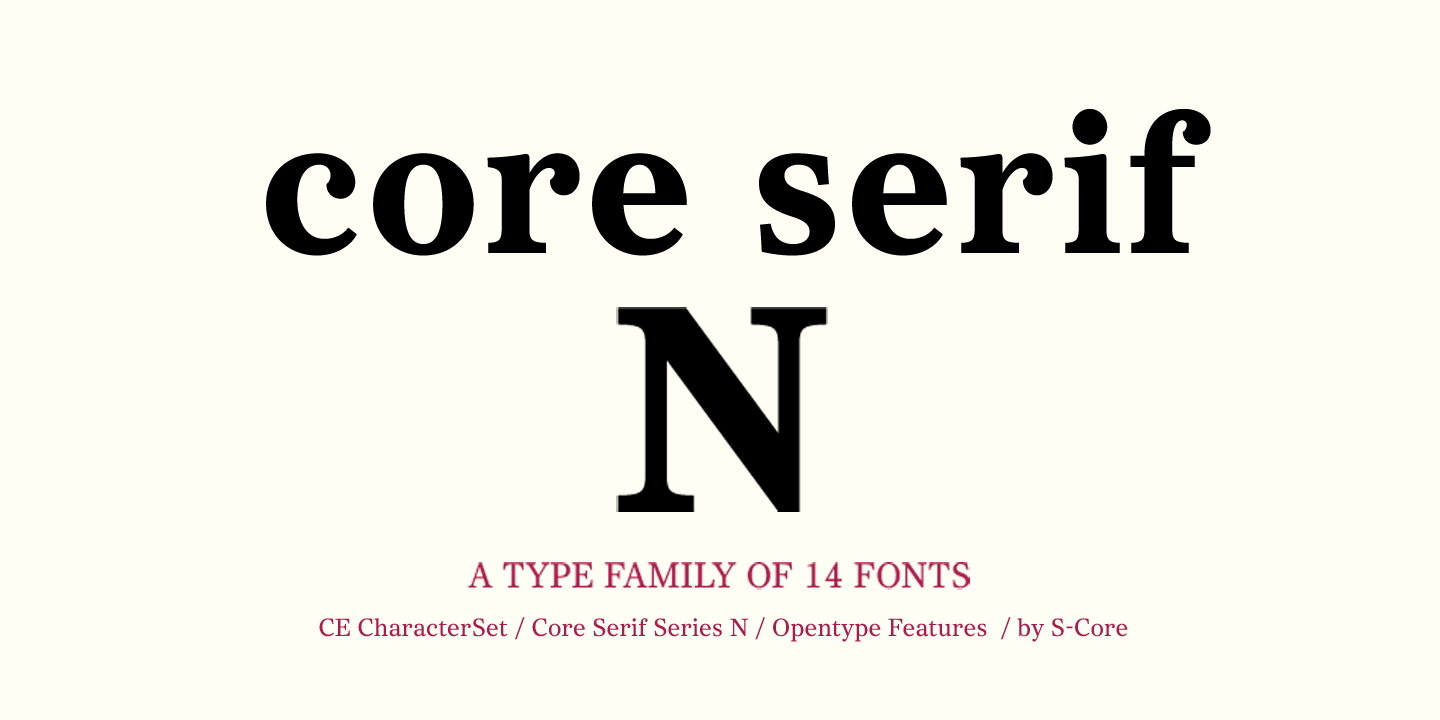
Core Serif N Font is perfect for scholarly publications, editorial design layouts, literary magazine typography, academic institution branding, book publishing projects, formal documentation, traditional newspaper design, and prestigious intellectual communications. This distinguished typeface excels in applications requiring typographic excellence and scholarly authority that establishes credible reading experiences across extensive text applications and formal publishing environments.
What makes Core Serif N Font exciting is its masterful embodiment of classical serif traditions combined with contemporary readability optimization that ensures exceptional performance in extended reading applications. The font features perfectly balanced letterforms with traditional serif elegance and modern optical refinements that create superior reading comfort while maintaining scholarly gravitas perfect for institutions requiring intellectual credibility and publishing excellence.
The Core Serif N Font family includes comprehensive weight options from light to bold, plus refined italic variations and small caps, offering designers complete tools for sophisticated editorial typography systems. The family provides consistent scholarly aesthetic with optimal weight progression for effective textual hierarchy and professional publishing projects requiring genuine academic character and traditional serif authority.
Core Serif N Font Free Download represents an exceptional choice for organizations seeking typography that embodies scholarly excellence and editorial professionalism. Whether you're developing academic publications, literary magazines, formal documentation, or intellectual communications, this font provides the authoritative character needed for establishing credible scholarly presence and traditional publishing standards.
The meticulously engineered letterforms of Core Serif N Font ensure optimal legibility across all reading conditions while maximizing scholarly appeal and traditional authority, making it ideal for academic publishing, editorial design, and formal text applications. This versatile typeface combines classical serif heritage with contemporary technical excellence for outstanding performance in professional environments requiring maximum readability and scholarly credibility.